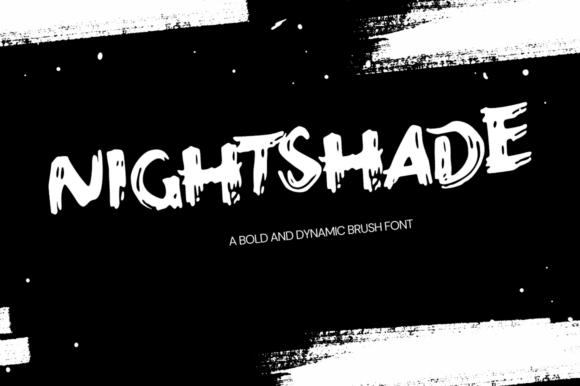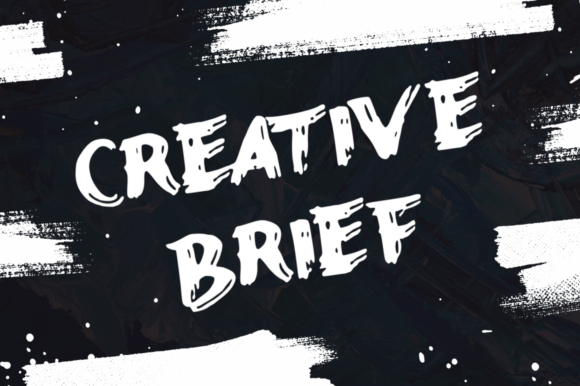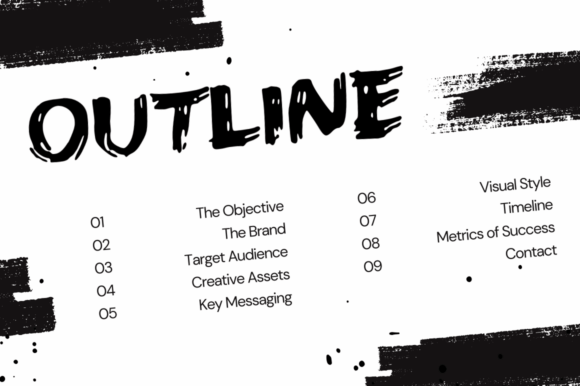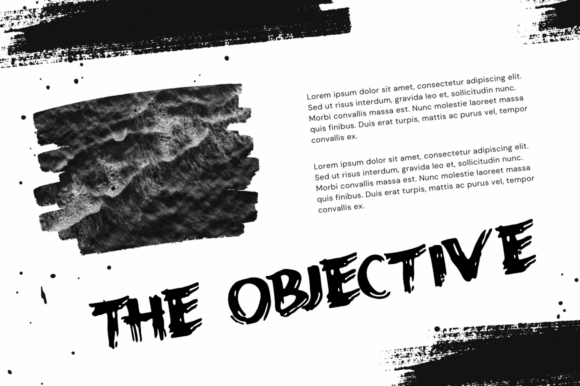
Nightshade Font: Bold Brush Typography for Edgy Branding
About the Nightshade Font
Discover the charm of Nightshade Font. This font is a perfect blend of modern aesthetics and classic appeal. Nightshade Font is a bold and dynamic brush font with wild, painted strokes that scream energy and attitude. Perfect for music posters, streetwear branding, edgy social media graphics, and eye-catching headlines. Its handmade feel adds rawness and authenticity to any creative project
Nightshade excels in large-scale applications like posters, headlines, and logotypes where its bold strokes command attention. It’s ideal for brands projecting a rebellious, energetic image—think streetwear, music festivals, or edgy art projects. However, its highly textured nature makes it unsuitable for body copy or UI elements requiring high readability.
Pairing Nightshade effectively requires a contrasting typeface to balance its wild energy. A clean sans-serif like Montserrat or a geometric sans-serif such as Futura would provide a strong visual counterpoint, creating a sophisticated tension. For a slightly softer contrast, a neutral serif like Lora could work well.
Nightshade’s core personality is rebellious and energetic, yet undeniably stylish. Its handmade quality gives it an authentic, raw feel. Avoid pairing it with overly ornate or delicate fonts which might dilute its impact.
Nightshade Font Usage Examples
Nightshade Font Example